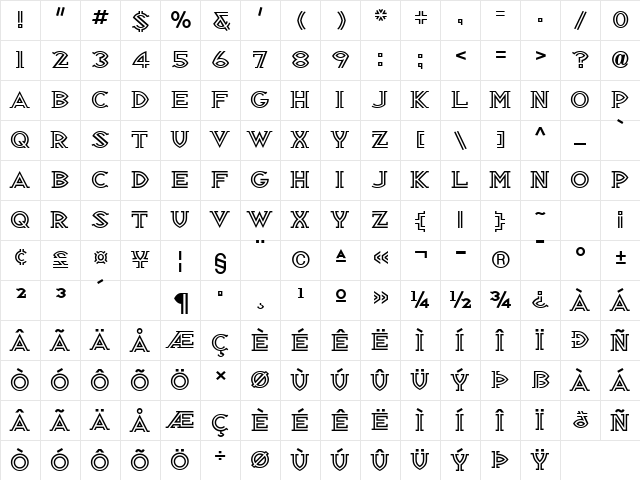
RepublikSerifICG 03Alt
Design Context for RepublikSerifICG Typeface
RepublikSerifICG brings classic typographic sensibility to the table — its serifs and measured letterforms reflect centuries of print heritage.